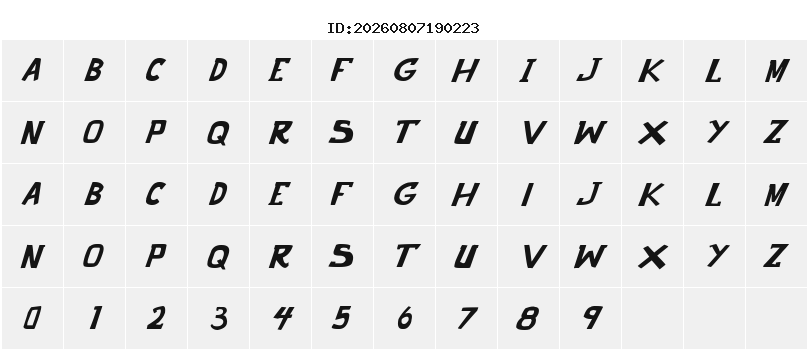
punch it PGS Preview
• Font Name: punch it PGS
• Font Style: Italique
• Font ID: punch it PGS Italic:Version 1.00
• Full Font Name: punch it PGS Italic
• Version: Version 1.00 March 30, 2014, initial release
• PostScript Name: punchitPGS-Italic
About punch it PGS.ttf
punch it PGS.ttf is a modern, elegant sans-serif font designed for ultimate readability and visual harmony. Perfect for branding, headlines, web design, and print materials.